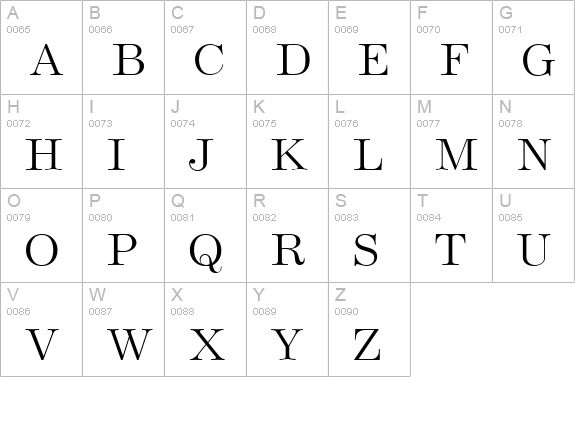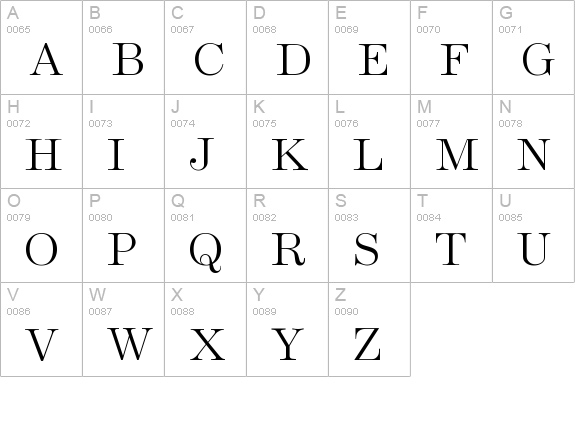
Andrich Regular Font Details
Andrich Regular is the standard, neutral variant in the Andrich typeface family \xE2\x80\x94 well suited to general body text, paragraphs, and standard typographic work.
Andrich Regular font is a versatile and modern typeface that exudes sophistication and elegance. With its clean lines and balanced proportions, Andrich Regular is perfect for a wide range of design projects, from branding to editorial design. This font offers a timeless and classic aesthetic that is sure to elevate any design it is used in. What makes Andrich Regular font even more appealing is that it is available for free download at FontsMarket.com. This means that designers and creatives can easily access this high-quality font without any cost. Whether you are working on a personal project or a client's project, Andrich Regular font is a fantastic choice that will help you achieve a polished and professional look. Download Andrich Regular today and add a touch of sophistication to your designs.